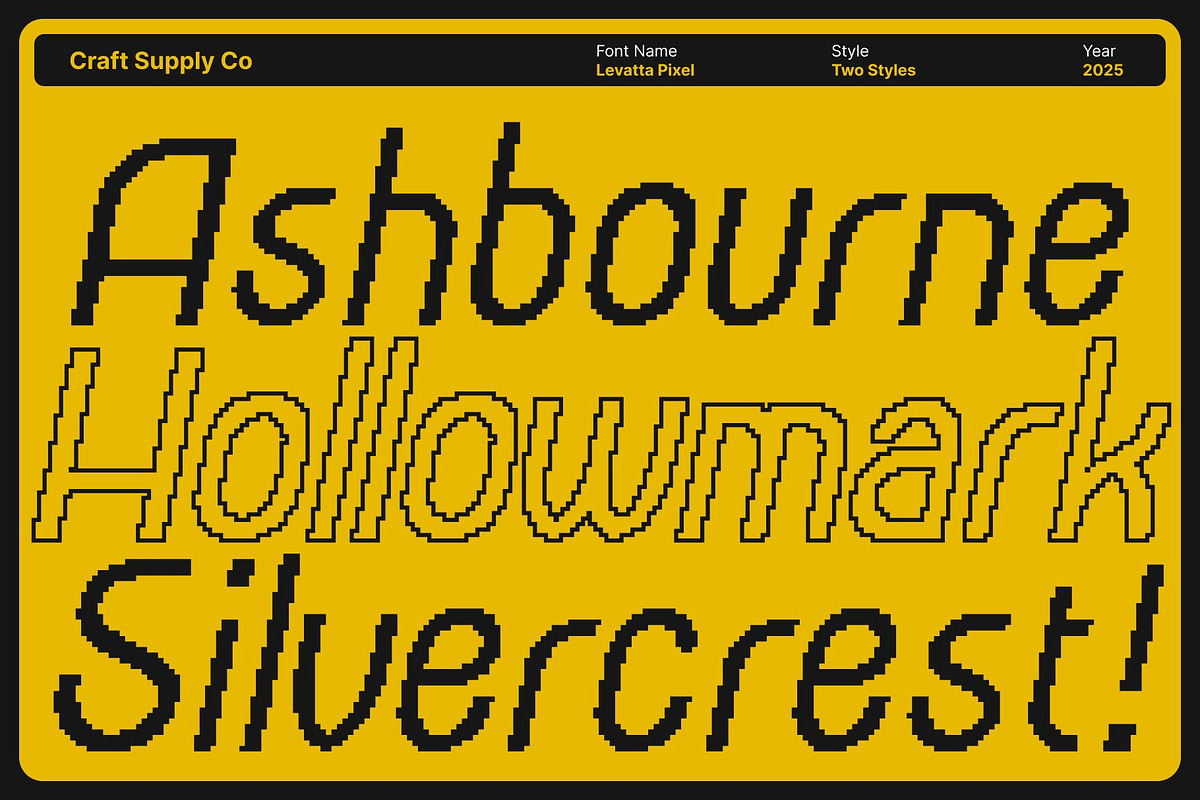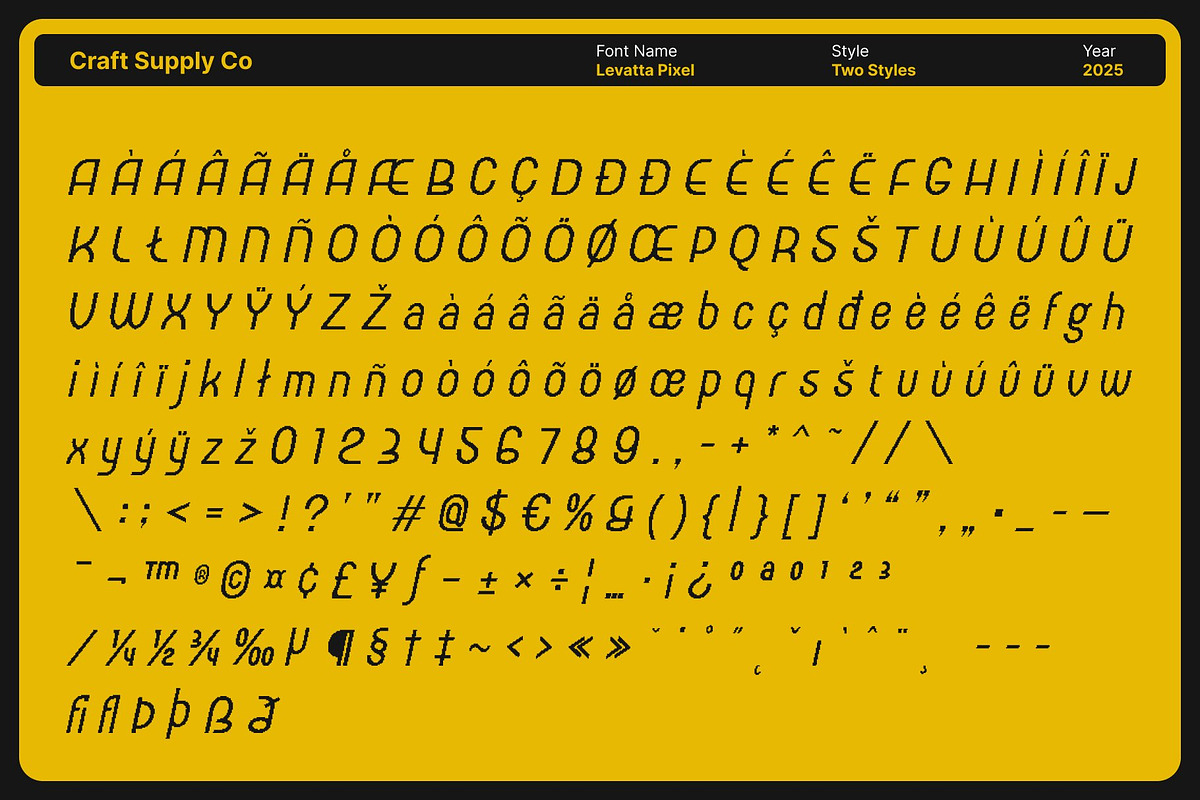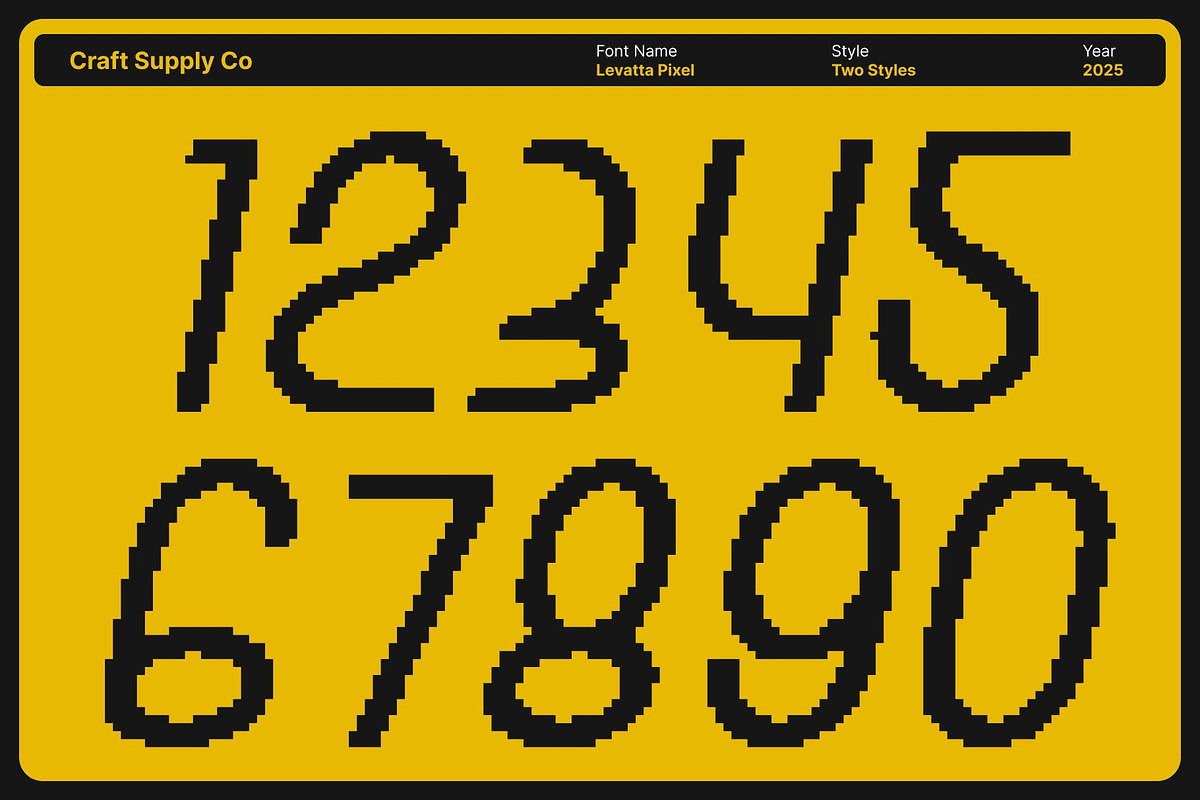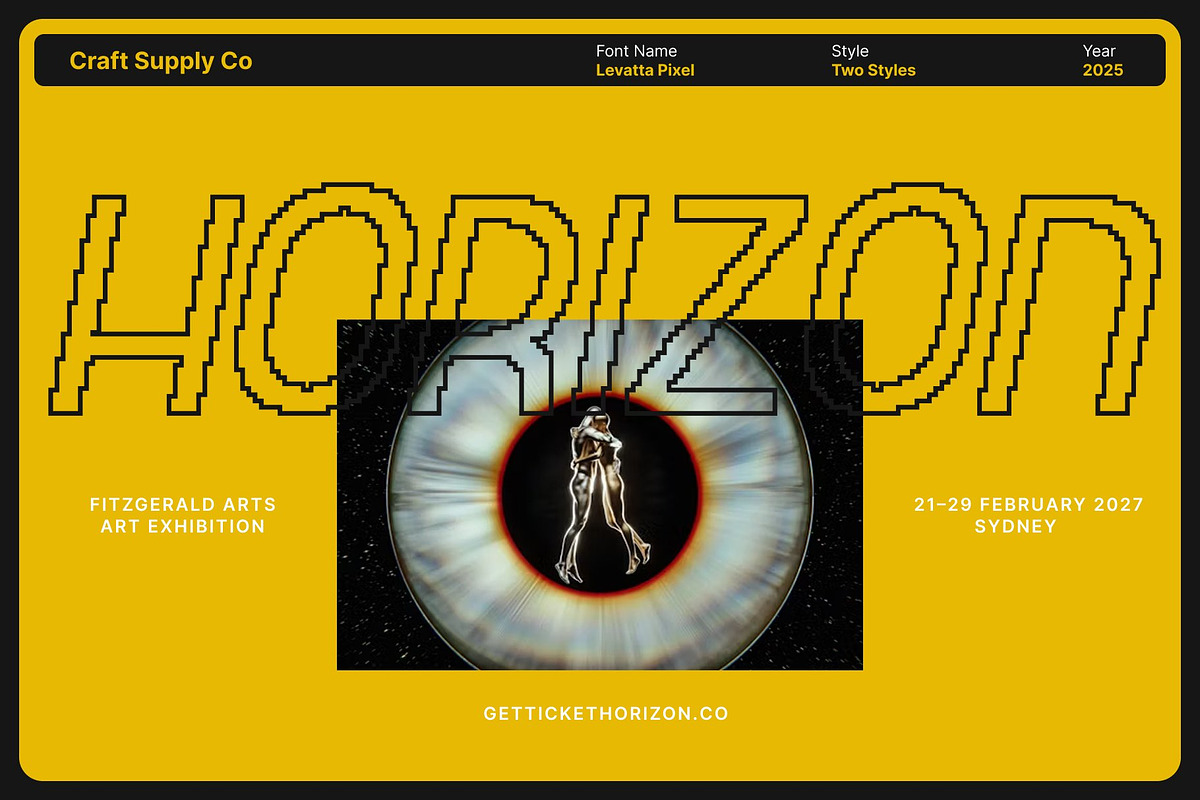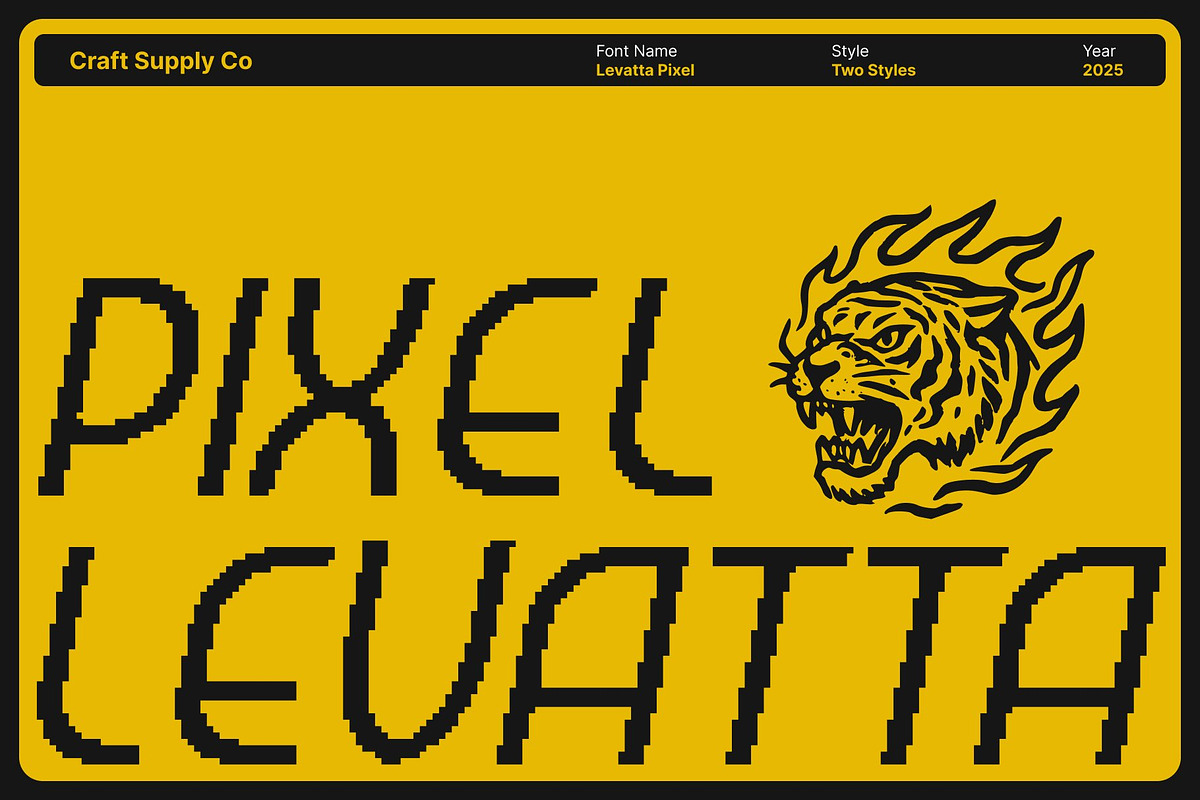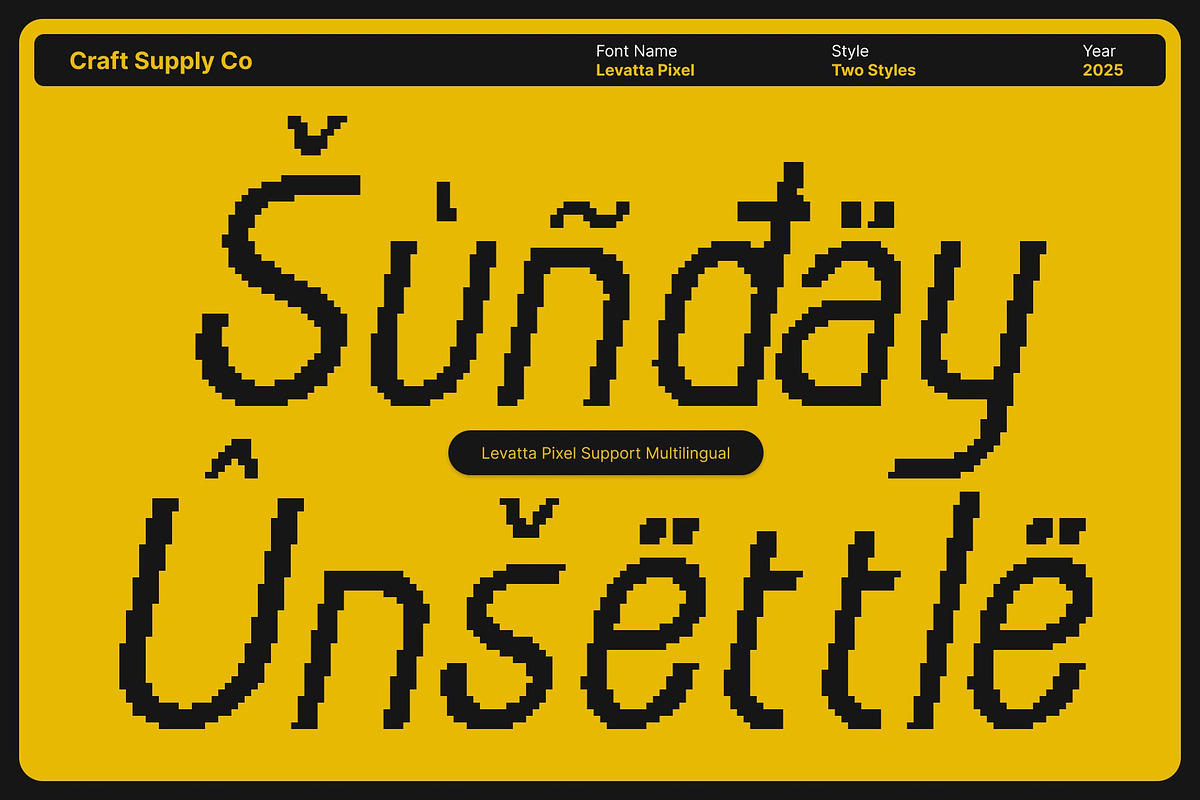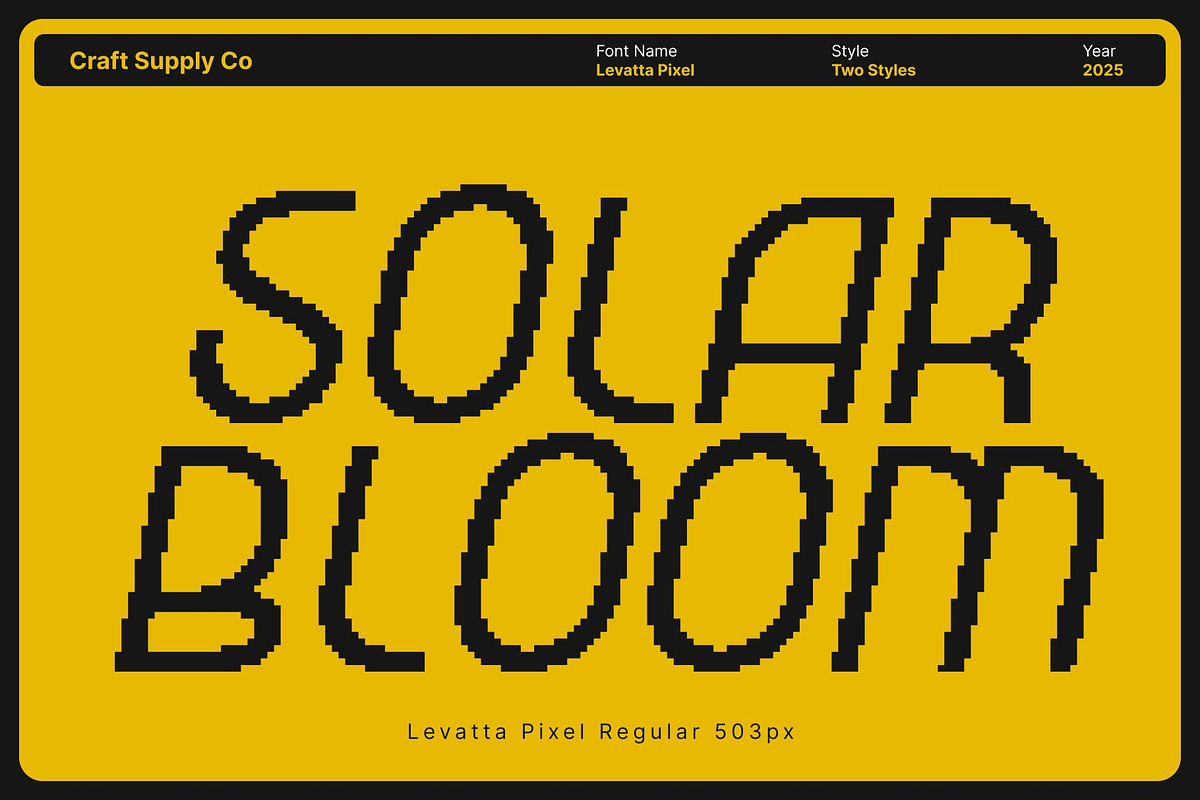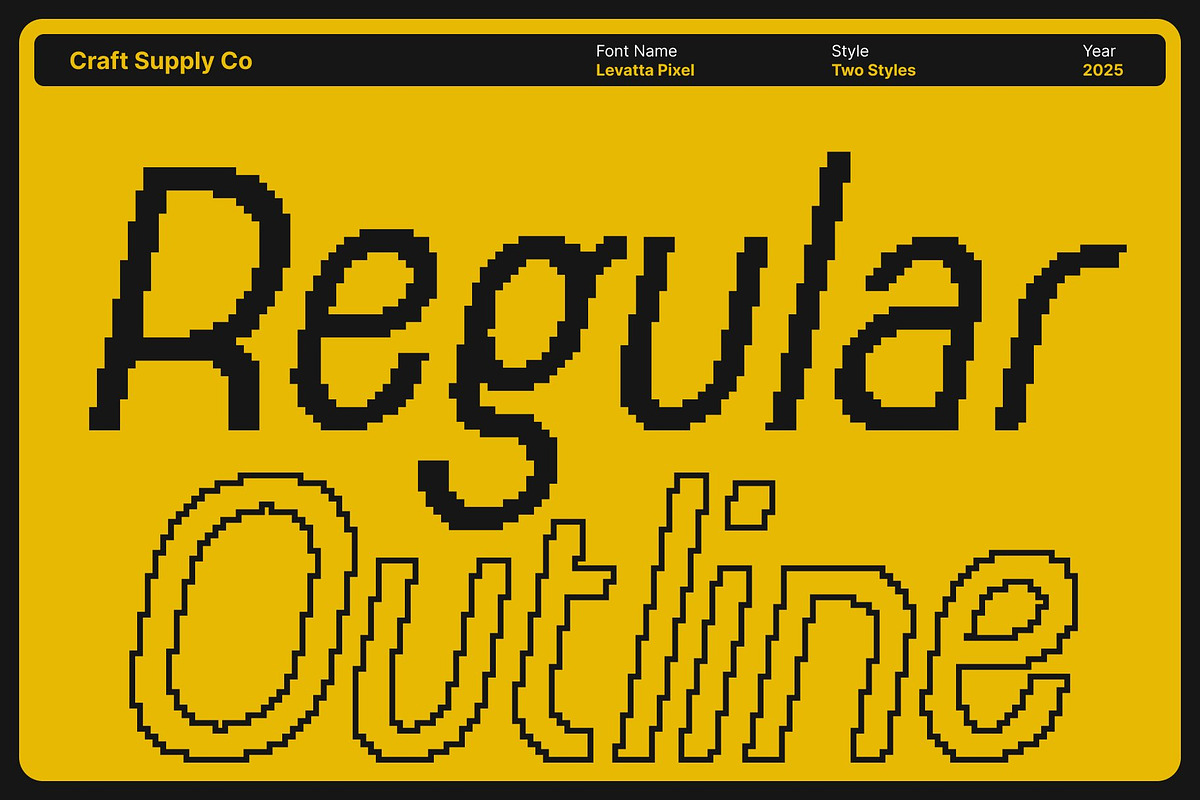
Levatta Pixel
Levatta Pixel – Futuristic Sci-Fi Sans Serif Display Font with 8-Bit Pixel Style
Futuristic Characters with Techno Geometry This introduces a striking blend of futuristic design and techno geometry, creating a dynamic sci-fi font perfect for high-impact visual projects. Its modern sans serif structure keeps each letter clean, sharp, and precise, making it ideal for video game titles, cyber interfaces, and movie branding that demands a bold, high-tech presence.
Digital Pixel Style for a Trendy 8-Bit Aesthetic The pixel influence adds a distinctive digital charm, combining retro 8-bit nostalgia with a fresh, contemporary twist. This pixel detailing enhances the techno look, giving your design an unmistakably digital identity that feels both nostalgic and forward-thinking.
Strong, Clear, and Designed for Impact With its futuristic forms and balanced proportions, this font maintains excellent readability while delivering a dramatic visual punch. The clean sans serif base ensures clarity, while the geometric sci-fi styling adds character and intensity perfect for titles, UI displays, posters, and branding that must stand out.
Perfect for Games, Interfaces, and Futuristic Branding This font excels in creative projects that aim to capture a sci-fi atmosphere with modern flair. Whether you’re designing game logos, cyberpunk visuals, futuristic dashboards, or film titles, this font brings trendiness, digital energy, and a unique 8-bit twist, making every design look modern, immersive, and unmistakably futuristic.
- Levatta Pixel Regular
- Levatta Pixel Outline